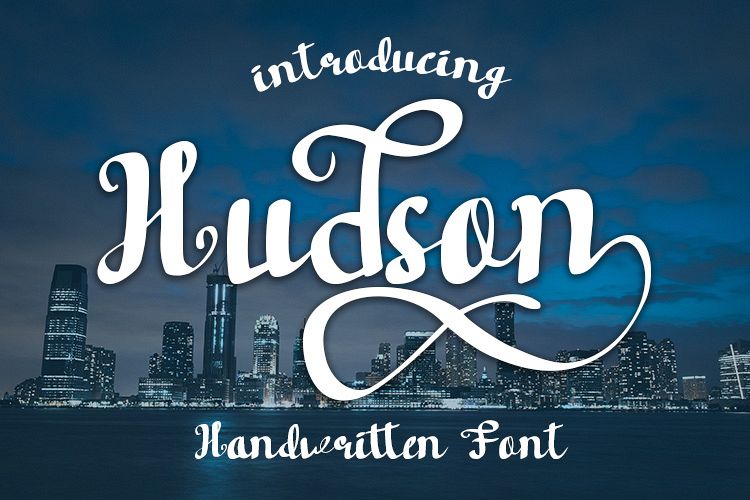
Hudson Handwritten font
Hudson is a beautiful handwritten font. It comes with styles which It looks lovely on quotes, t-shirt, signage, logos, business cards, goods and more. It gives you the opportunity to create simply beautiful unique designs.